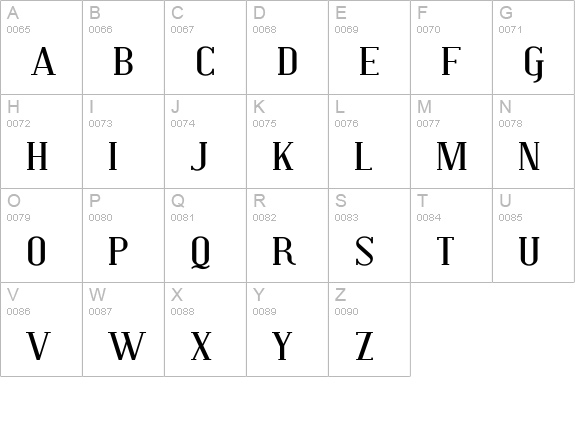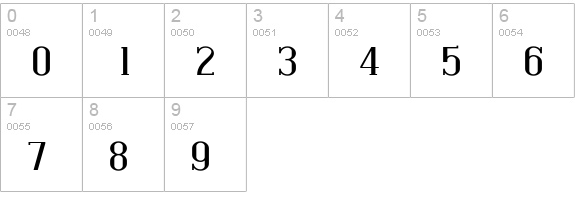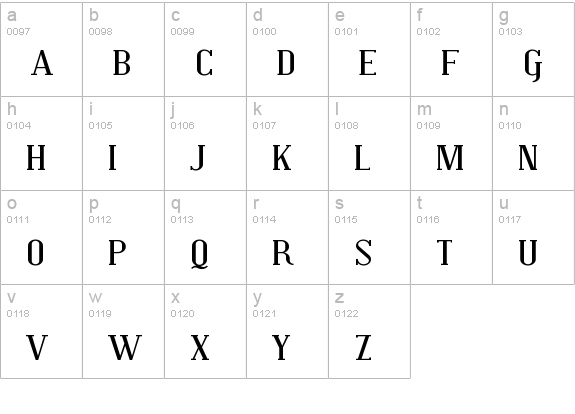
Covington SC Exp font is a classic and elegant typeface that exudes sophistication and style. With its elongated and slender letterforms, this font is perfect for adding a touch of refinement to any design project. The high contrast between thick and thin strokes creates a sense of drama and flair, making Covington SC Exp font truly stand out. What's even better is that this stunning font is completely free to download at FontsMarket.com. Whether you're working on a branding project, invitations, or any other creative endeavor, Covington SC Exp font is sure to elevate your design to the next level. Embrace the timeless beauty and versatility of Covington SC Exp font in your next project and make a lasting impression.